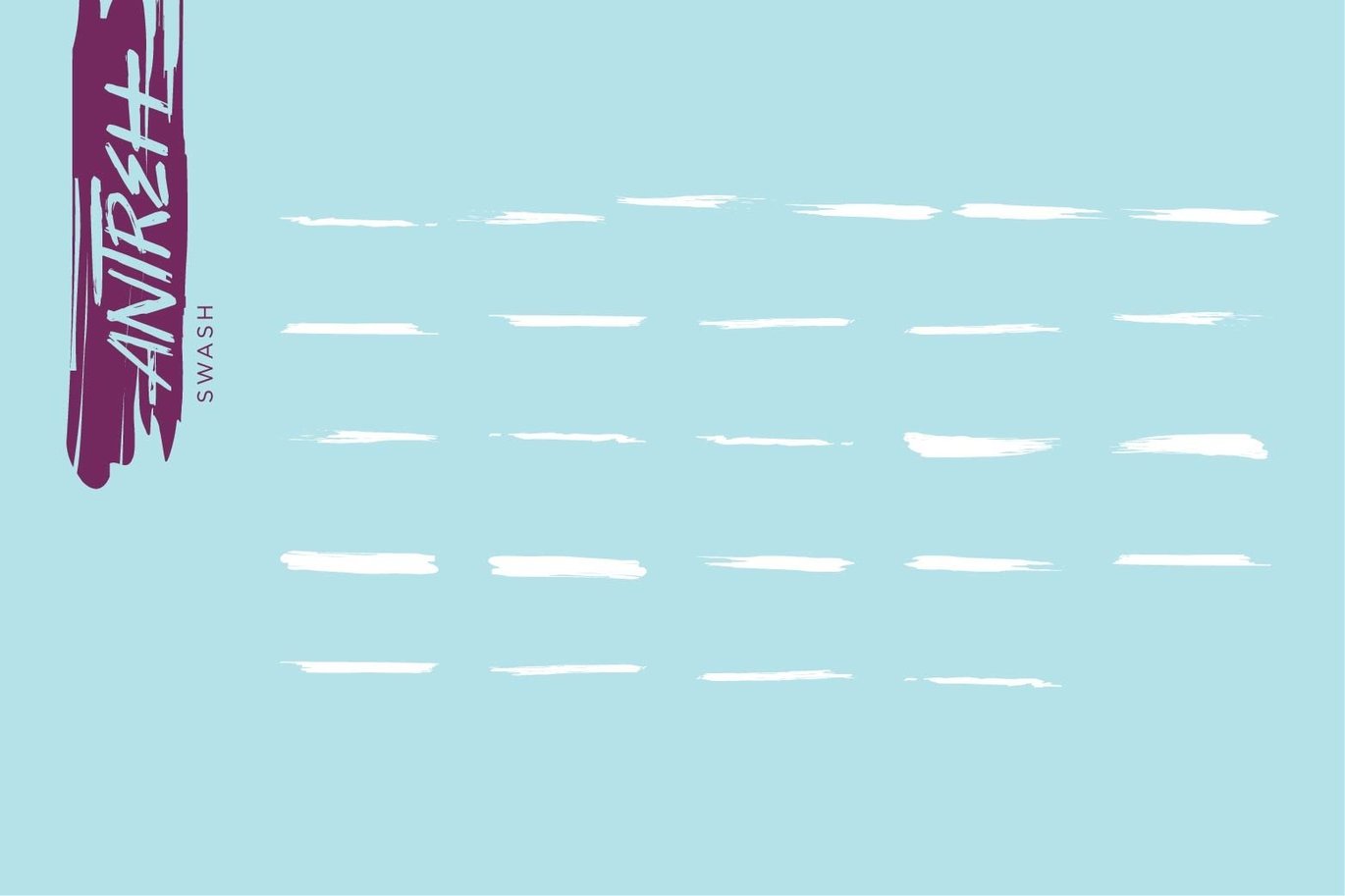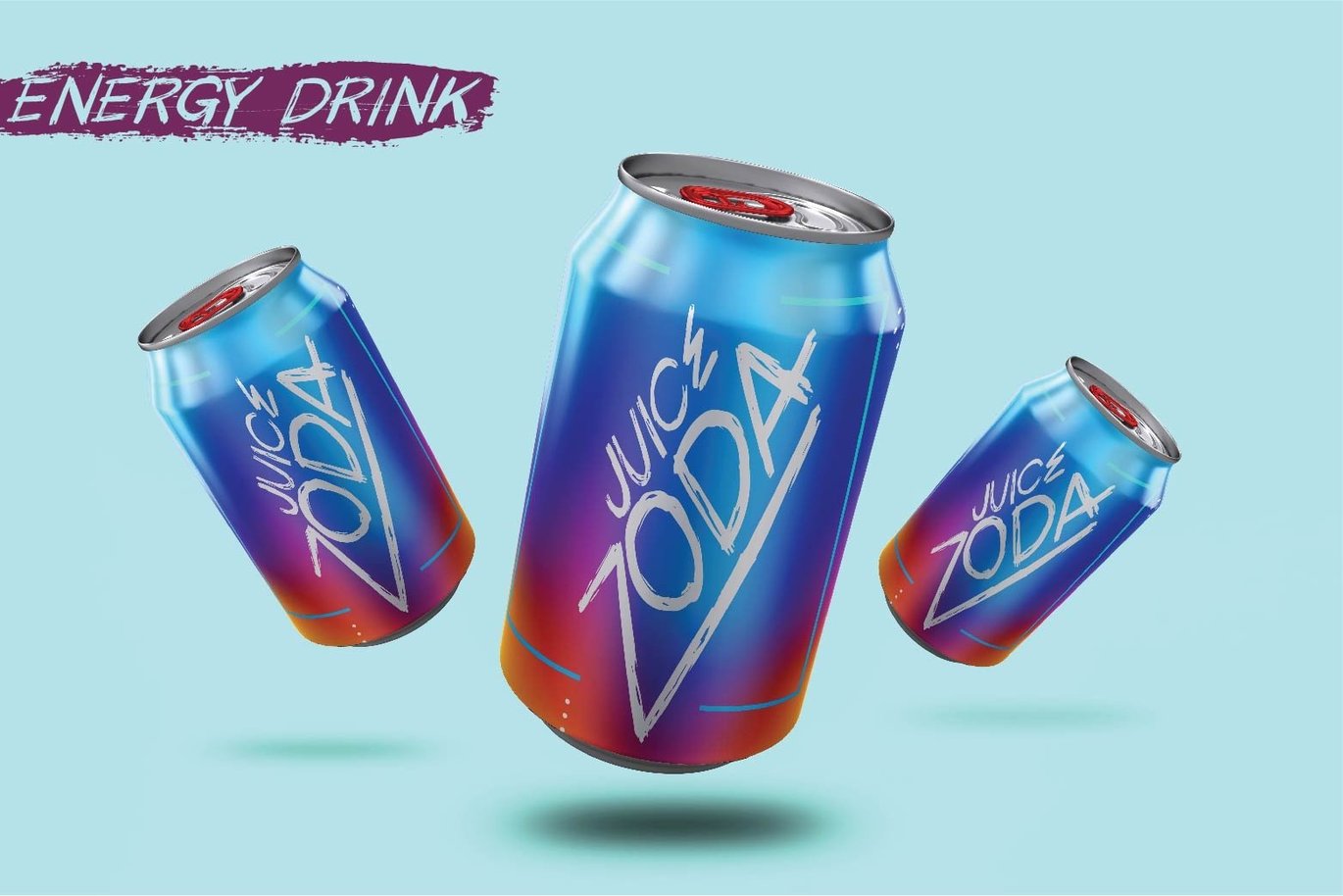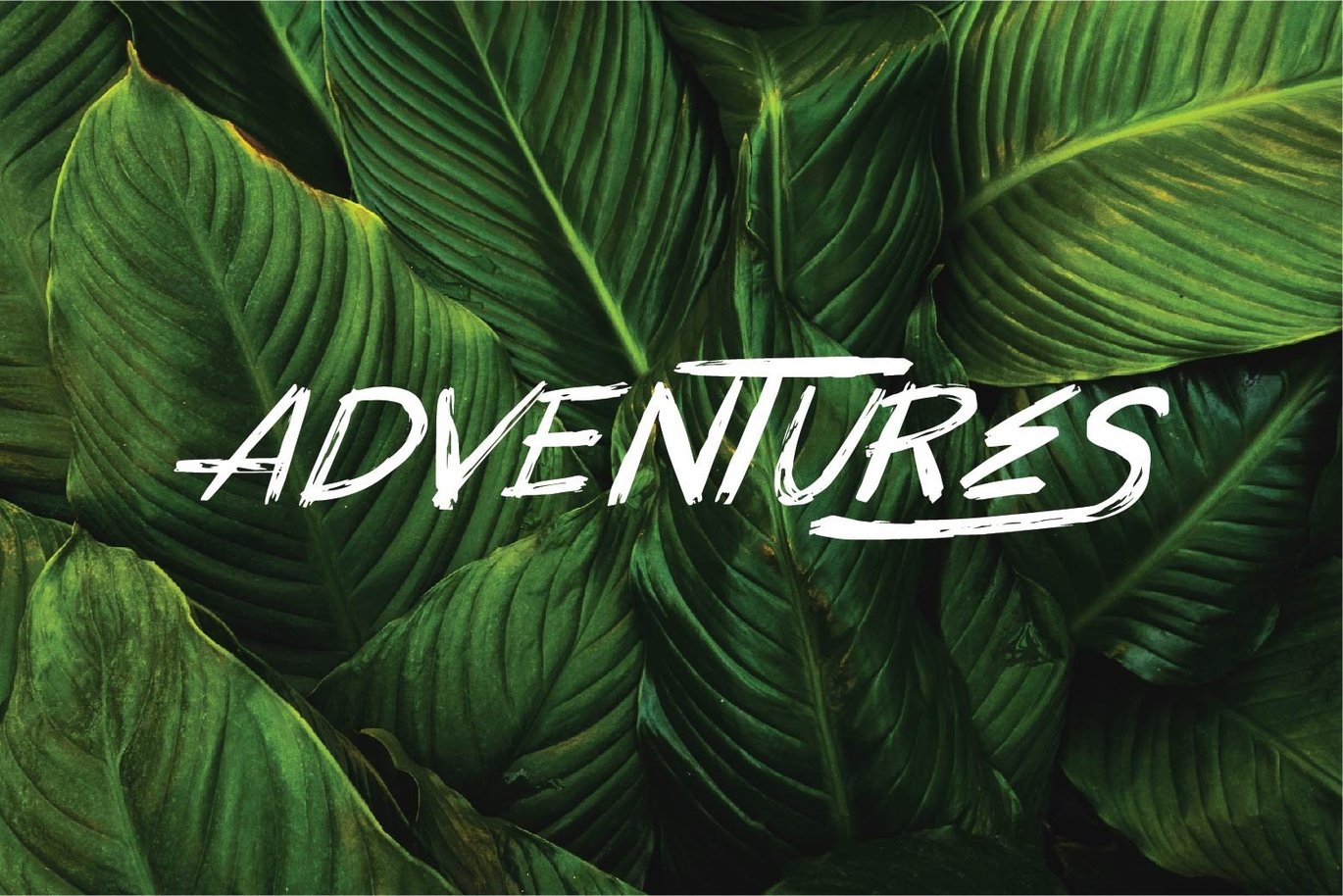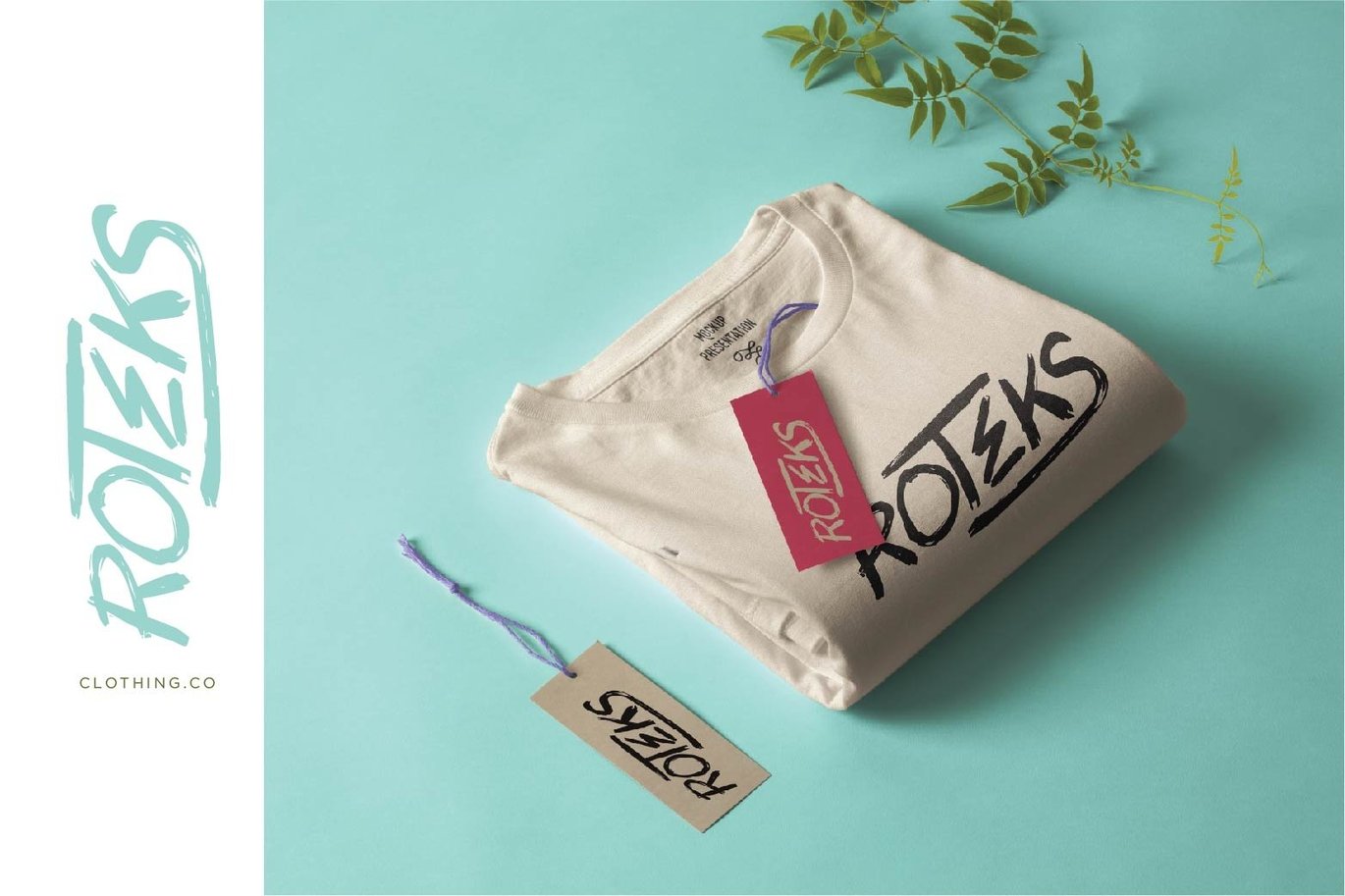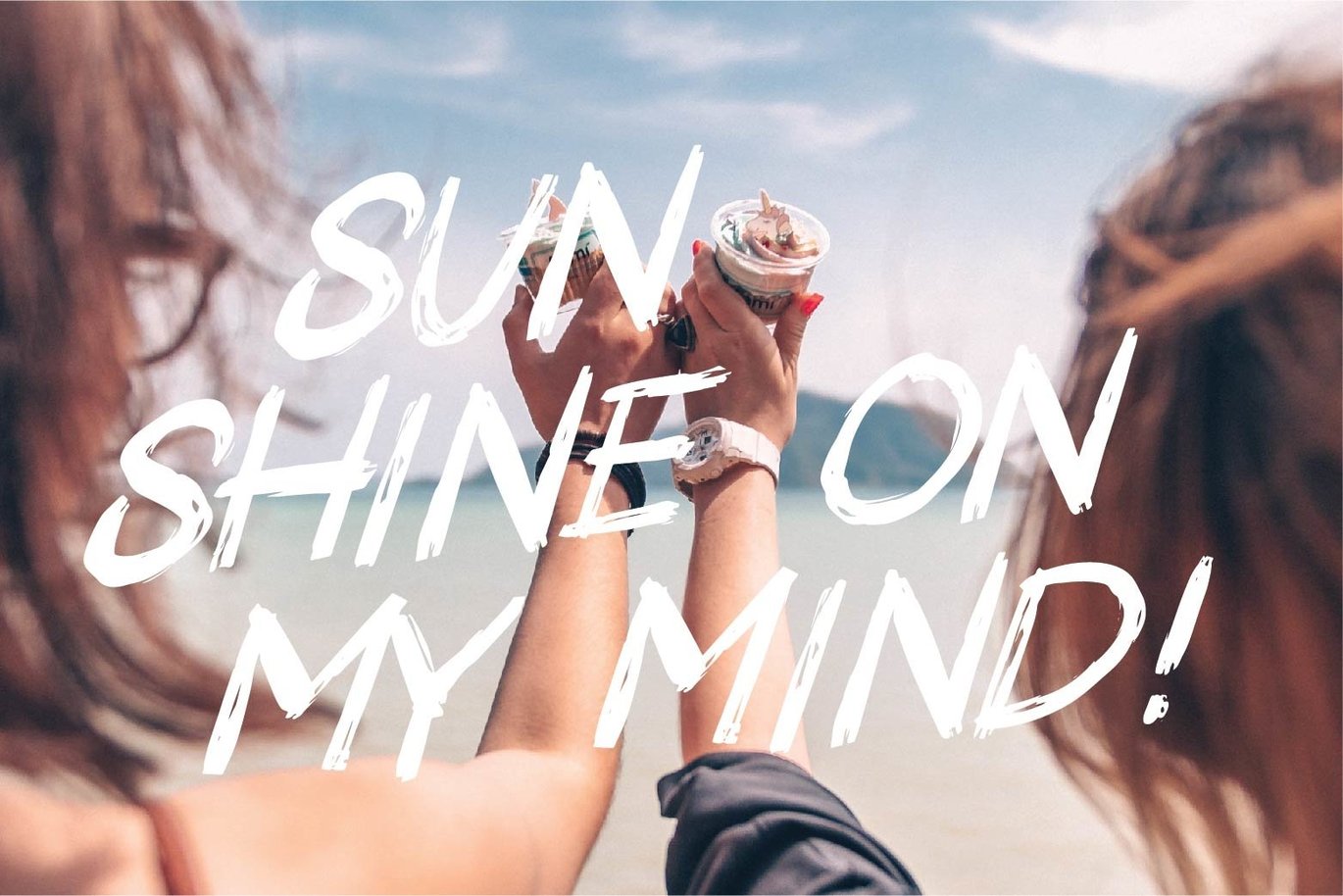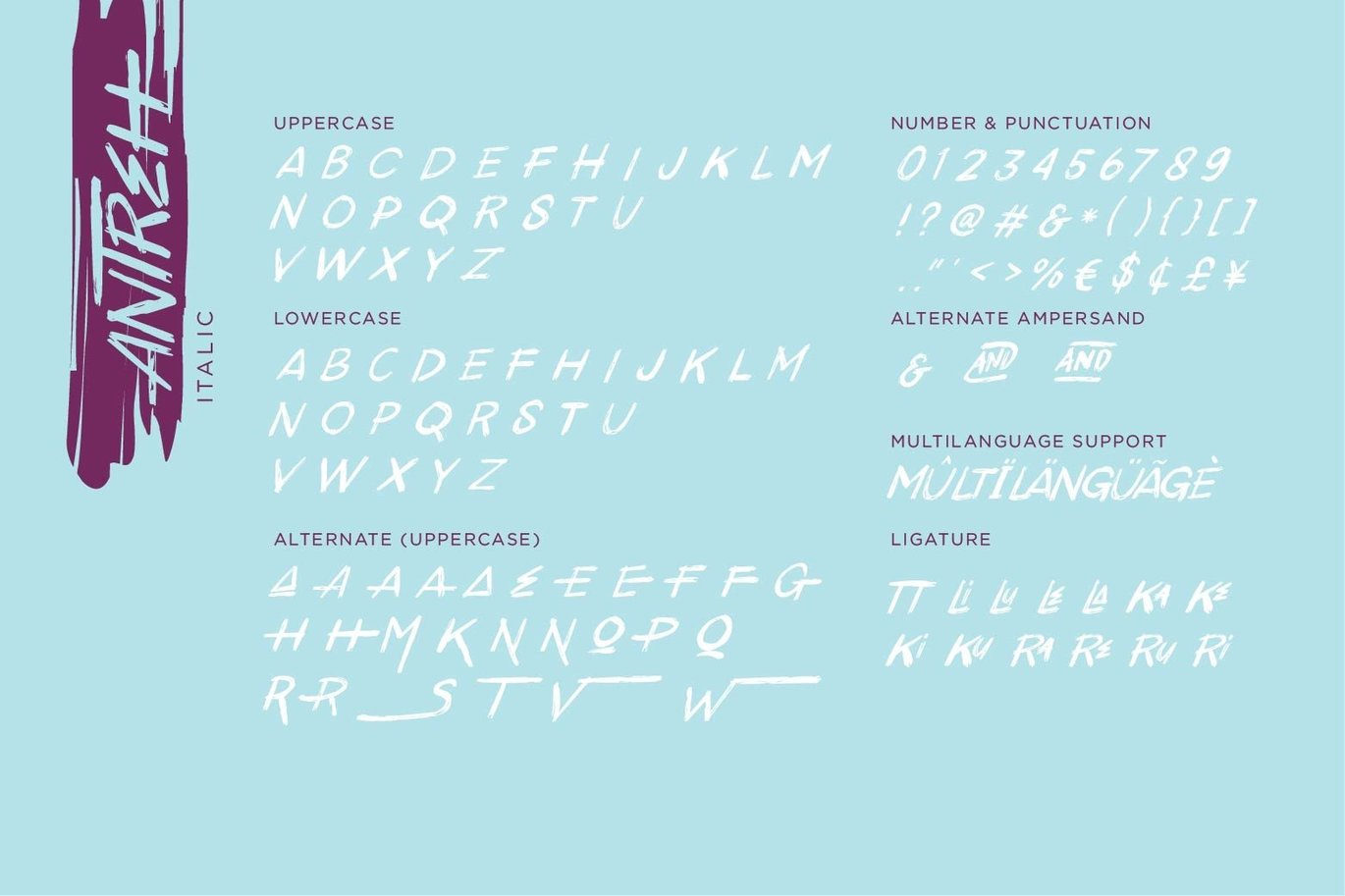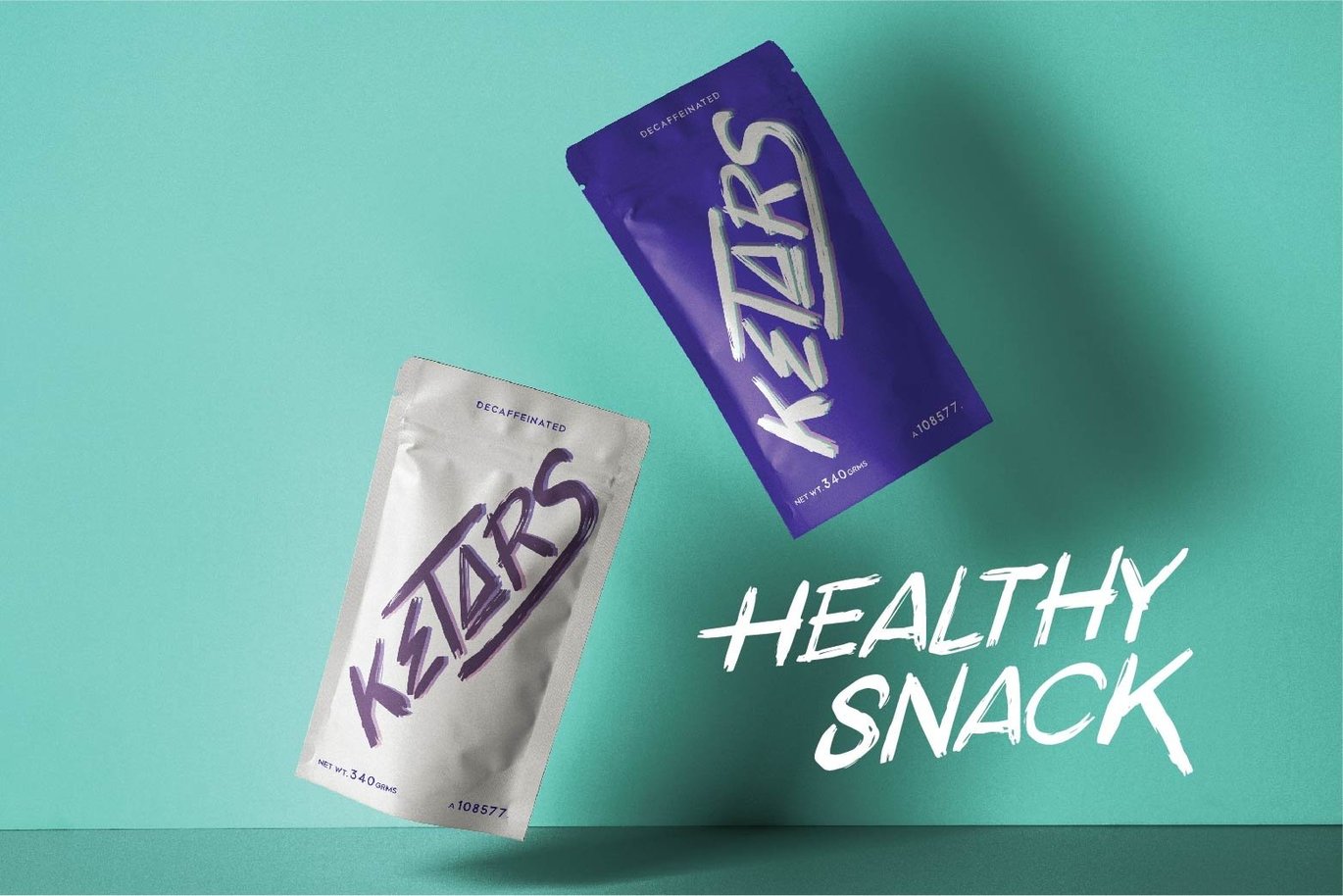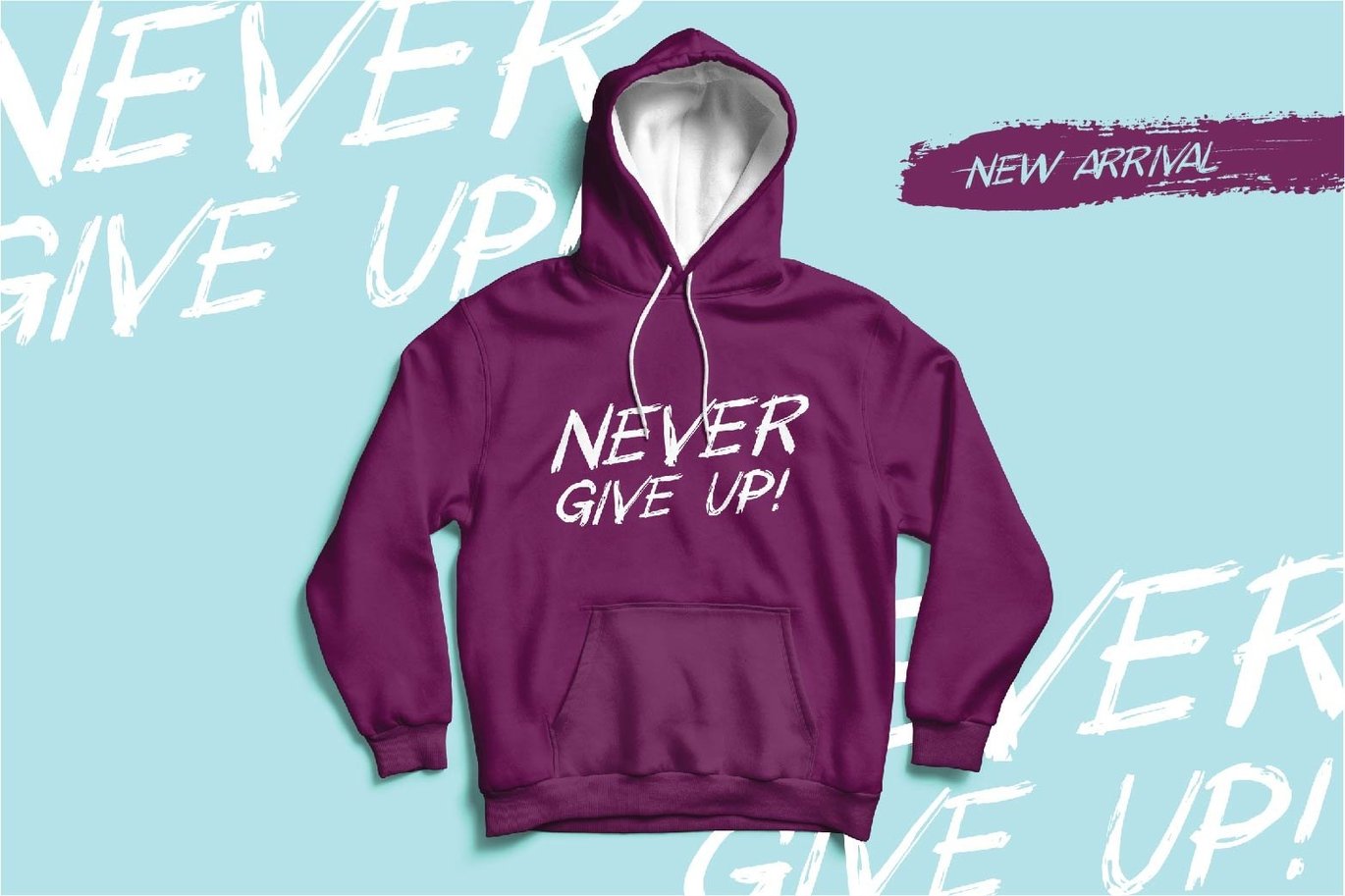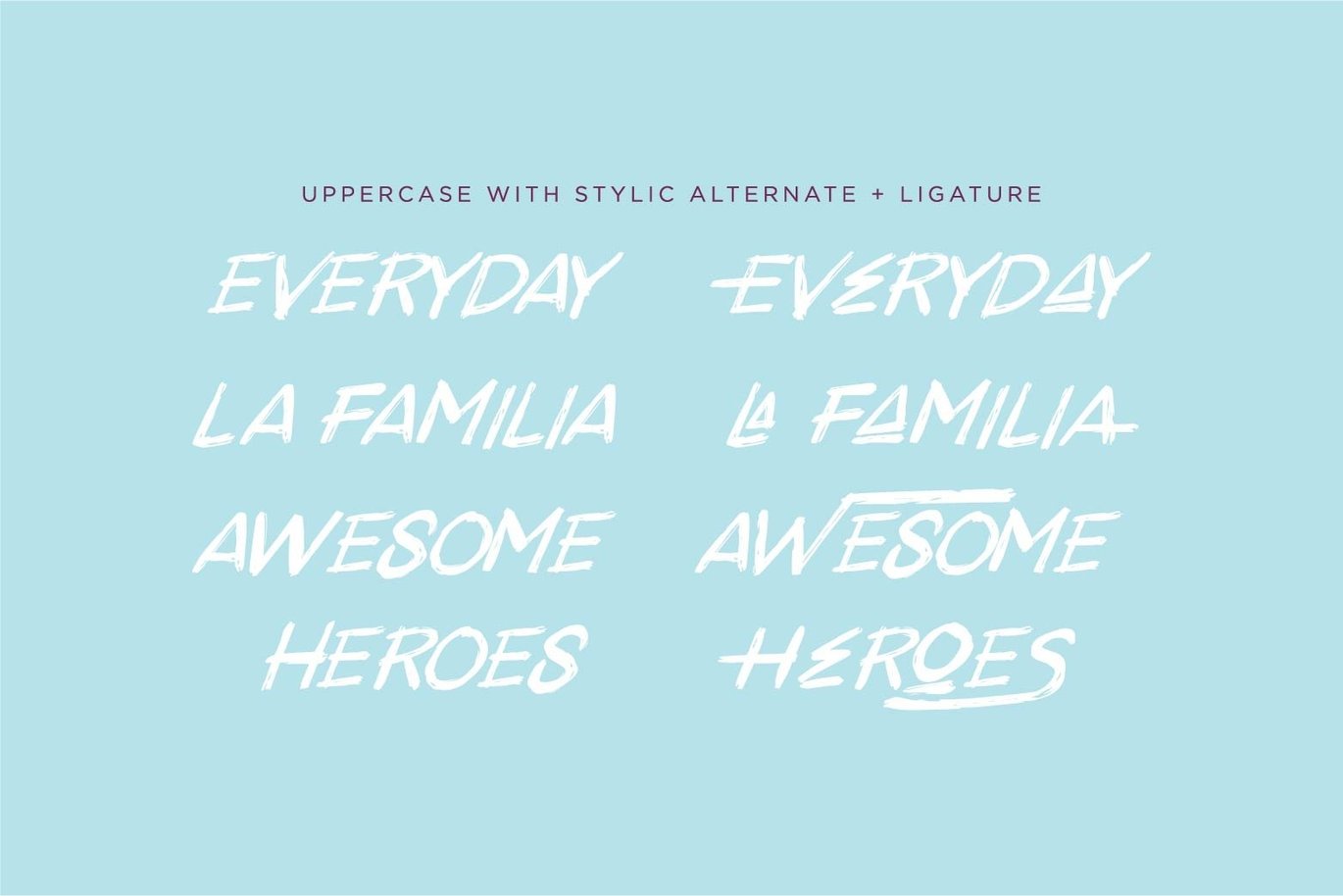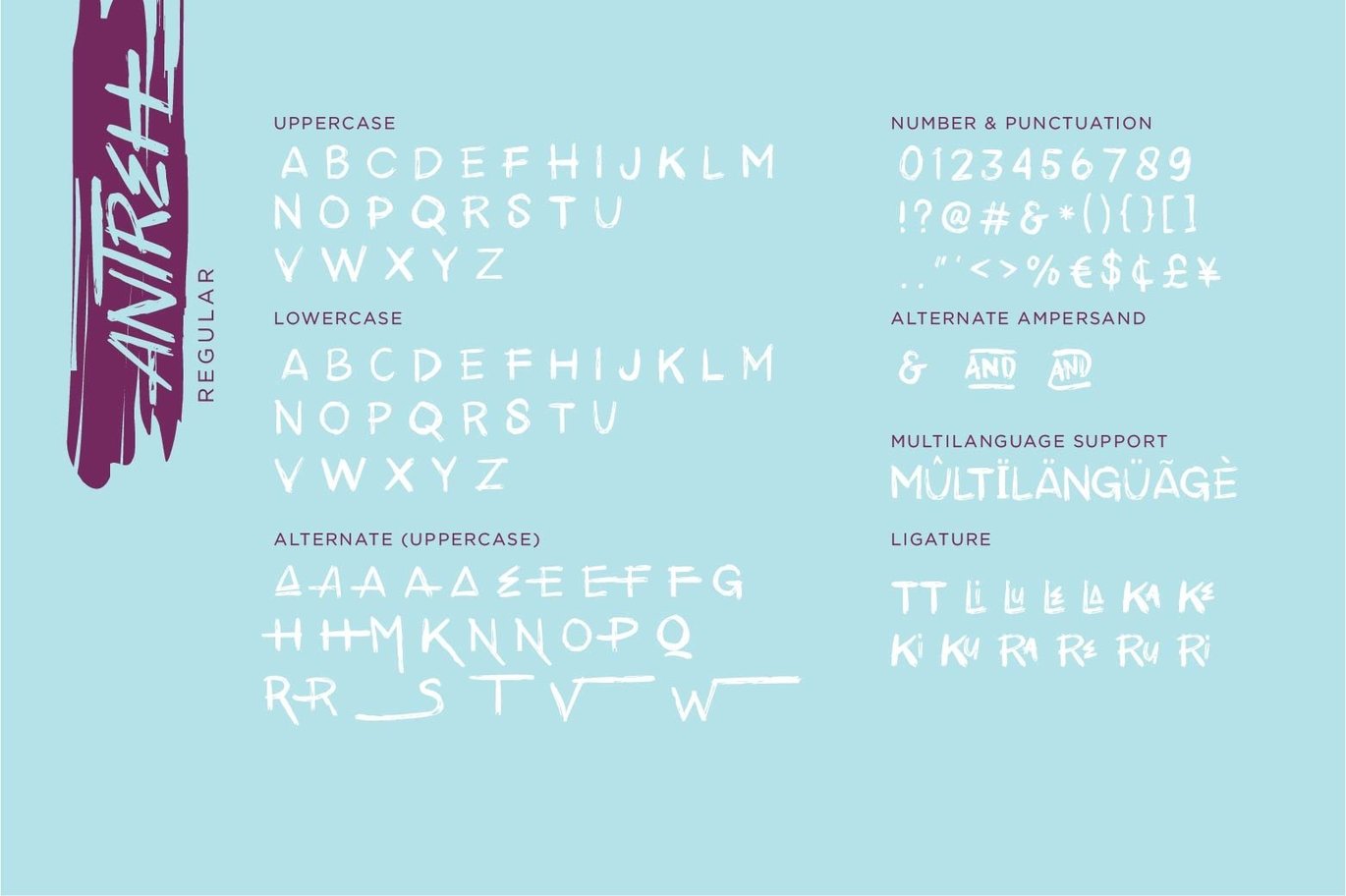
Antreh – Brush Font
Introducing Antreh
a punchy New Brush style! with Extras Bonus.
street-wise brush font bursting with With extra attention to quick strokes
Antreh! is guaranteed to deliver an unapologetically loud & fast-paced message; ideal for logos, apparel, quotes, product packaging, or anything which needs a typographic turbo-boost.
Uppercase Only
Numerals & Punctuation
Multilingual support